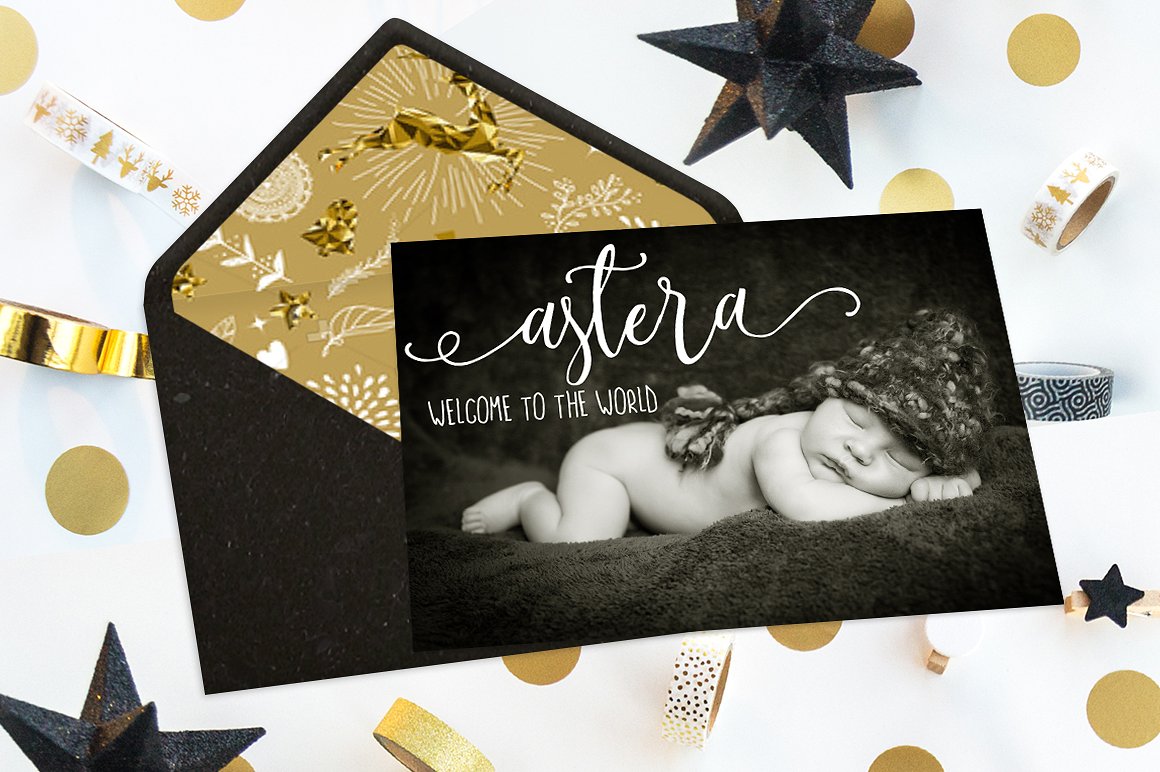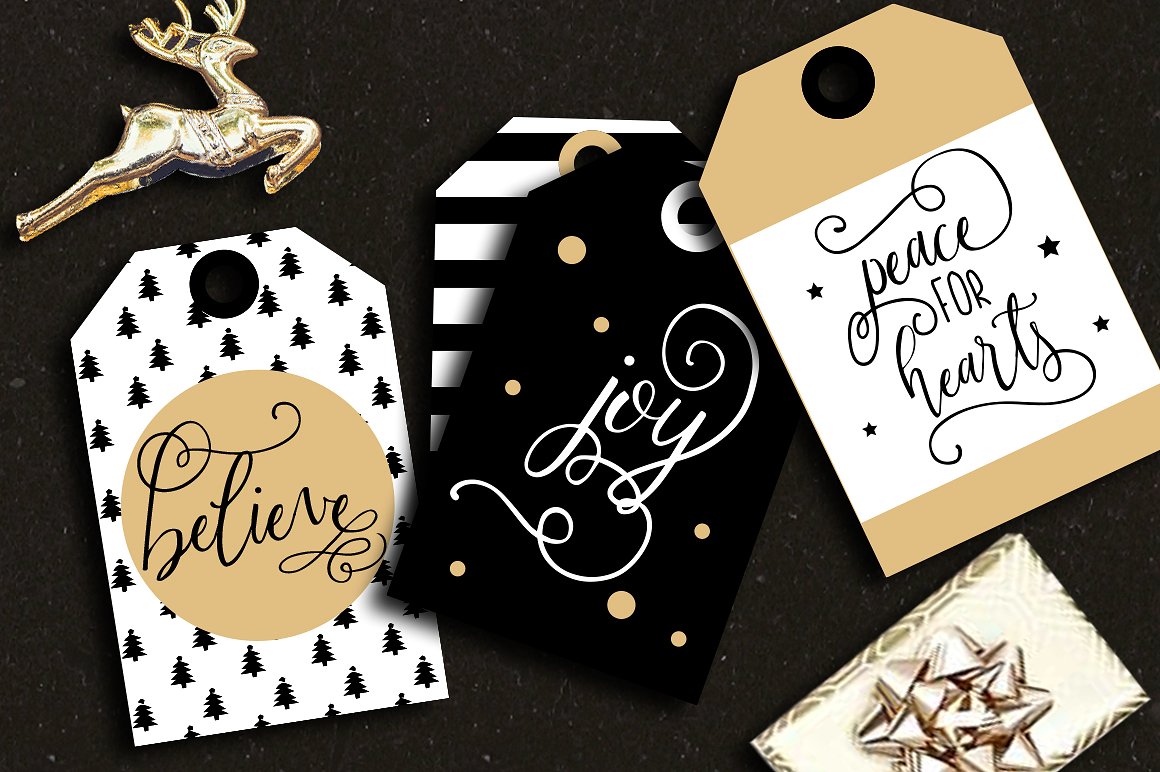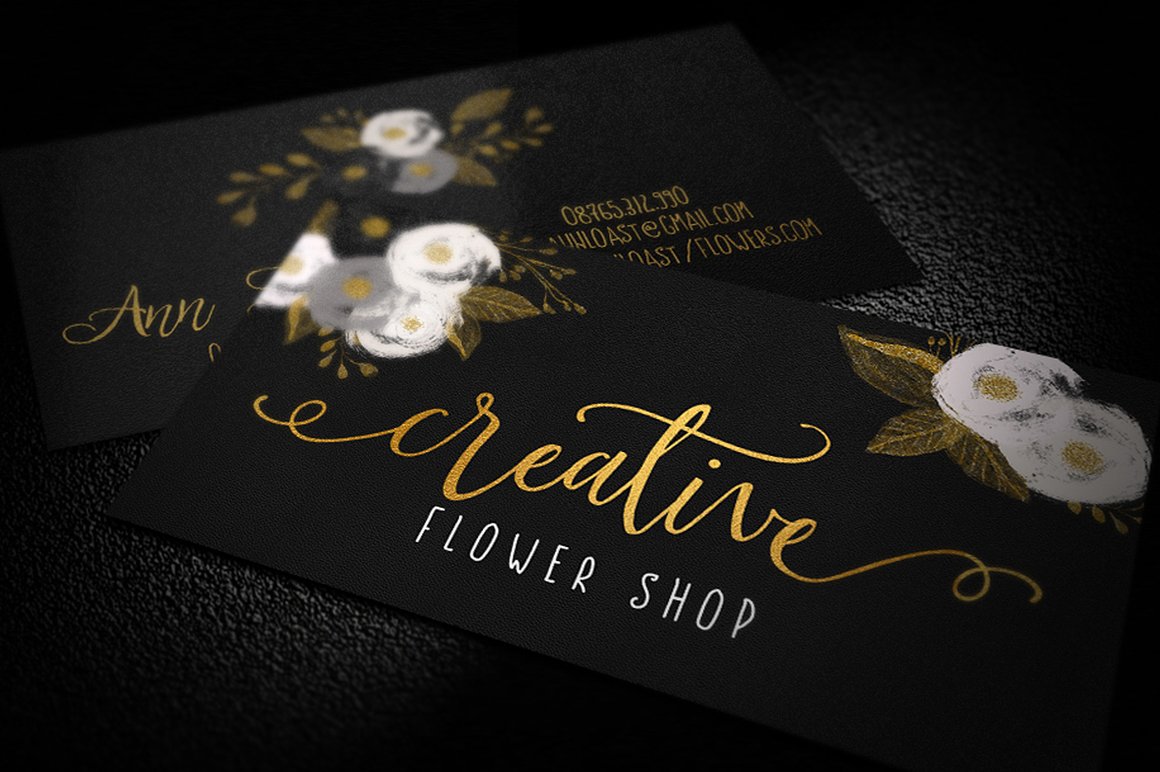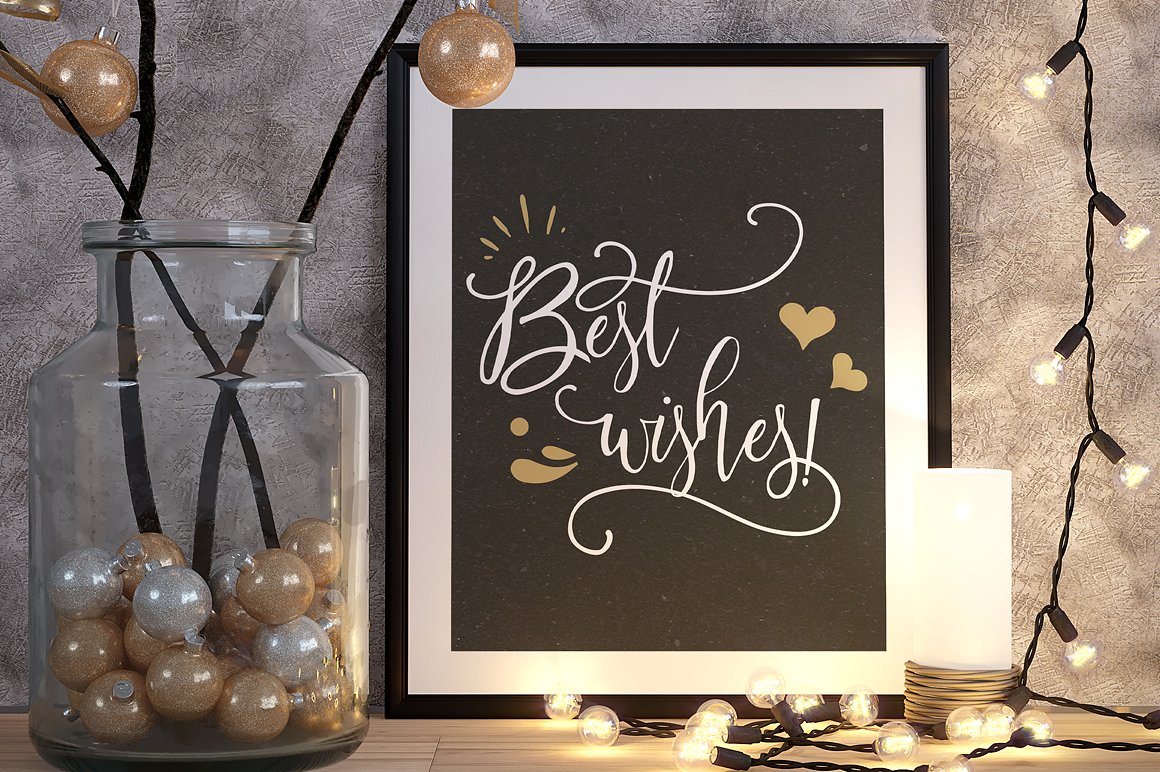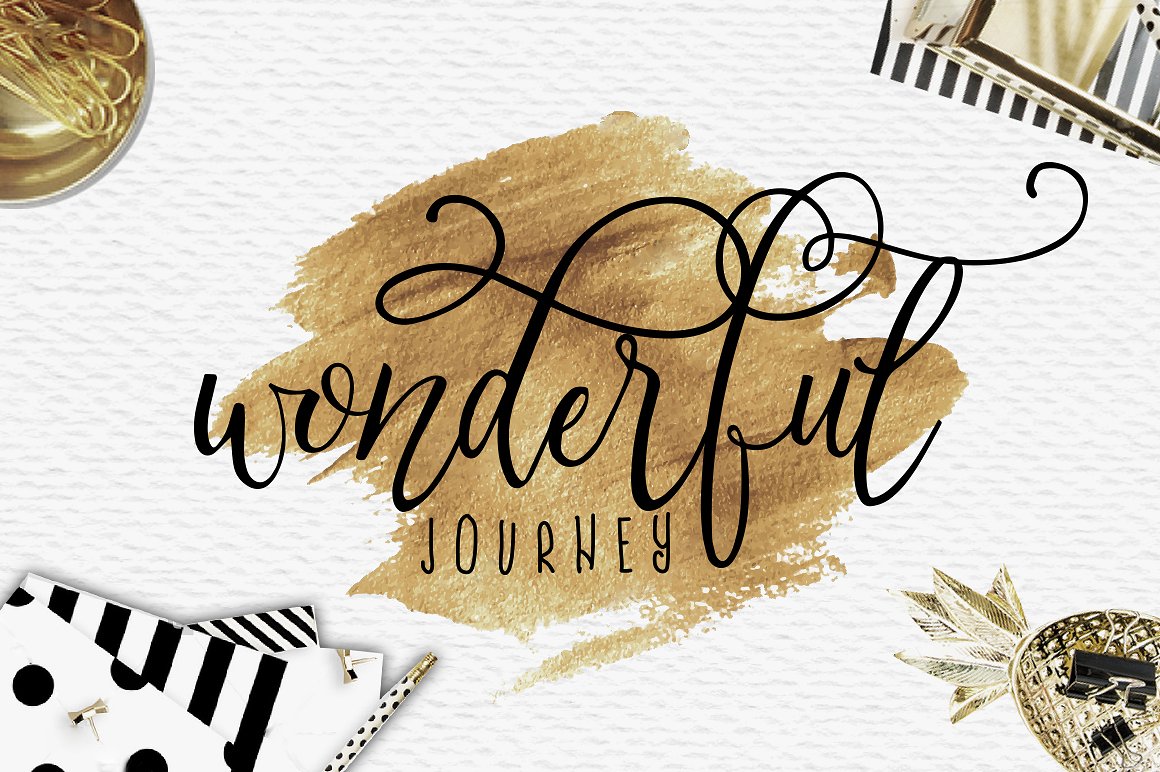
Introduction to Rastenoba Script Font
Have you ever found yourself stuck in front of a blank page, desperately searching for the perfect font to bring your creative project to life? It’s a feeling every designer knows all too well. But what if you stumbled upon a font that not only elevates your design but also adds a touch of elegance and sophistication? Welcome to the world of Rastenoba Script Font, a beautiful and high-quality script font that’s about to become your new go-to design resource.
With its pretty swashes and transparent background, Rastenoba Script Font is perfect for designers who want to add a classy appeal to their projects. Whether you’re working on a wedding invitation, a blog post, or a social media graphic, this font duo is sure to make your design stand out. And the best part? You can download it for free, making it an invaluable resource for any creative project.
Key Features of Rastenoba Script Font
- High-quality design: Rastenoba Script Font offers a sophisticated and elegant appearance, perfect for creative projects that require a touch of sophistication.
- Transparent background: This feature allows for seamless integration with any background image or color, giving you complete creative control.
- High-resolution design: Rastenoba Script Font is designed at 300 DPI, making it suitable for print and digital applications.
- Unique script style: The font’s distinctive script style sets it apart from other fonts, adding a touch of personality to your design project.
- Perfect for creative projects: Rastenoba Script Font is ideal for wedding invitations, quotes, and other design elements that require a beautiful, handwritten look.
Honest Review: Rastenoba Script Font
I recently stumbled upon the Rastenoba Script Font and was immediately drawn to its elegant, high-quality design. As a designer, I’m always on the lookout for new and exciting fonts to elevate my creative projects. The Rastenoba Script Font did not disappoint.
One of the things that stood out to me was the transparent background, which made it easy to layer and combine with other design elements. The font itself is a beautiful, cursive script that adds a touch of sophistication to any design.
- May not be suitable for bold or loud designs
- Some users may find the font too delicate or whimsical
Overall, I’m impressed with the Rastenoba Script Font and would highly recommend it to designers looking for a beautiful, high-quality script font. With its transparent background and elegant design, it’s a great addition to any design resource library.
When using Rastenoba Script Font, consider the following tips: use it sparingly to avoid overwhelming your design, pair it with a clean and simple background, and experiment with different font sizes and colors to achieve the desired effect.
Rastenoba Script Font is commonly used in wedding invitations, quotes, and other creative projects where a high-quality, elegant font is desired. Its transparent background makes it easy to layer over other design elements, making it a versatile design resource for designers and non-designers alike.